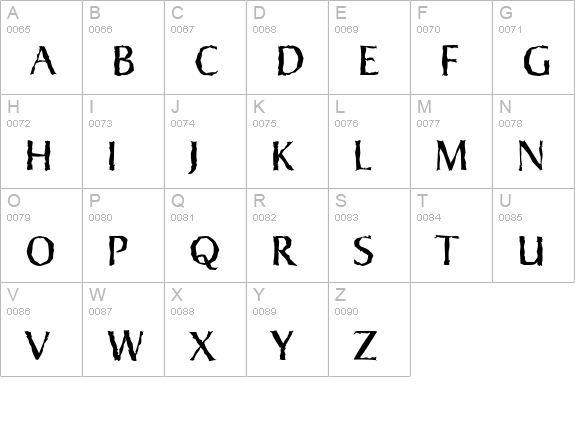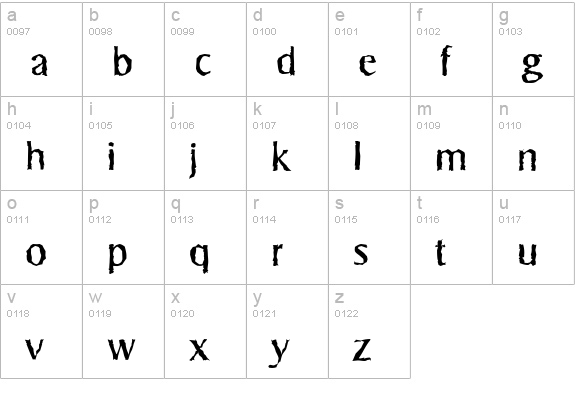
SigvarRandom-Regular is the standard, neutral variant in the SigvarRandom typeface family \xE2\x80\x94 well suited to general body text, paragraphs, and standard typographic work.
SigvarRandom-Regular is a modern and versatile font that exudes a sense of creativity and uniqueness. With its playful yet sophisticated design, this font is perfect for a wide range of projects, from branding to social media graphics to packaging design. The irregular shapes and varying stroke widths give this font a dynamic and energetic feel, making it stand out from the crowd. One of the best things about SigvarRandom-Regular is that it is available for free download at FontsMarket.com. This means that you can start using this font in your projects right away without any cost. Whether you are a designer looking to add a fresh touch to your work or a business owner wanting to create eye-catching marketing materials, SigvarRandom-Regular is a fantastic choice that won't break the bank. Download it today and unleash your creativity with this amazing font!